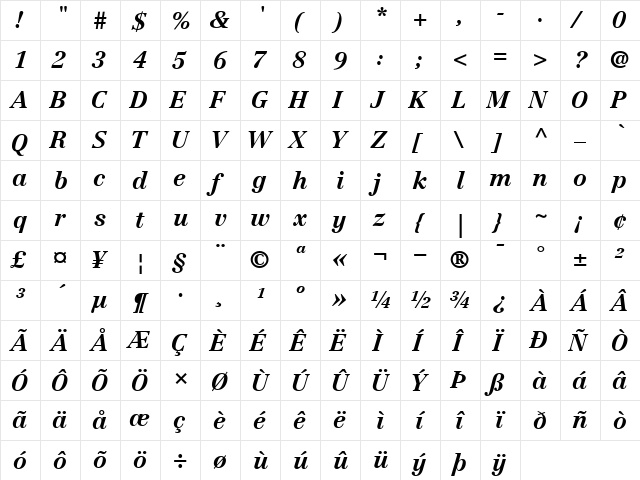
LinotypeCentennial76 BoldItalic Font Preview
Design Context for LinotypeCentennial76 Typeface
LinotypeCentennial76 offers clean, dependable letterforms without strong stylistic allegiance, making it a practical choice for designers who need flexibility. Its italic angle brings a sense of urgency and motion to the letterforms. Its bold stroke weight gives it real presence on the page.
Pro Tip: Try LinotypeCentennial76 for annotation and caption copy alongside an upright companion — the contrast in angle creates a dynamic but ordered typographic system.